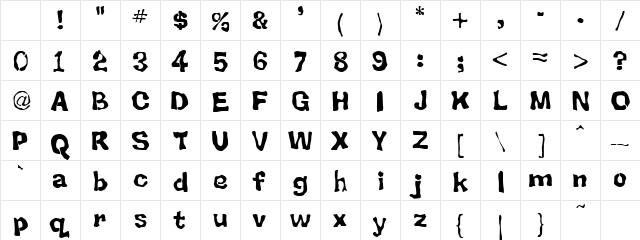
Complete BackSplatter Drippy glyph index. Displaying only characters natively supported by BackSplatter Drippy font.
BackSplatter is a composed and adaptable typeface that performs quietly and consistently across a wide range of design contexts.